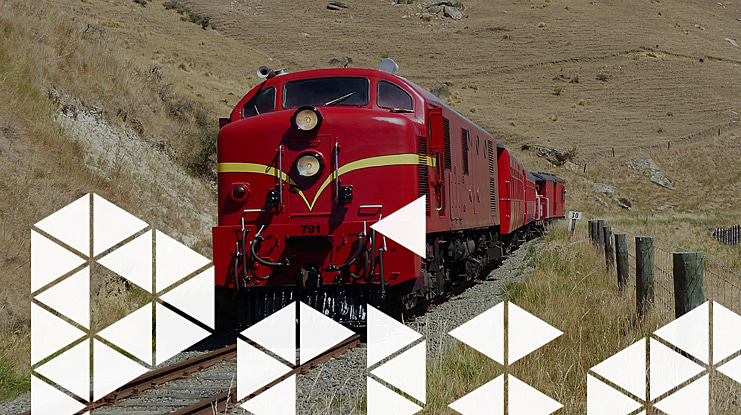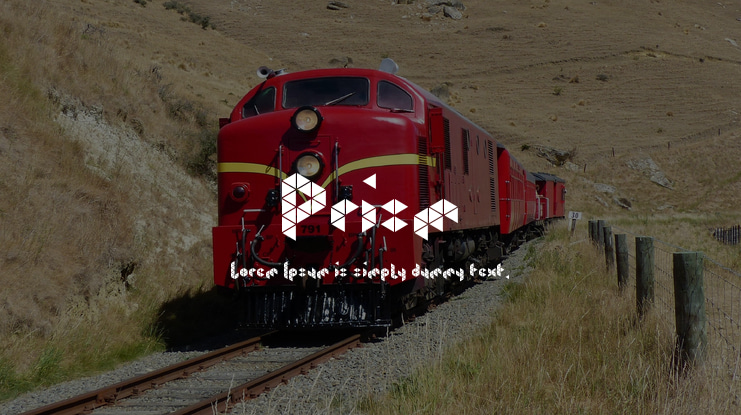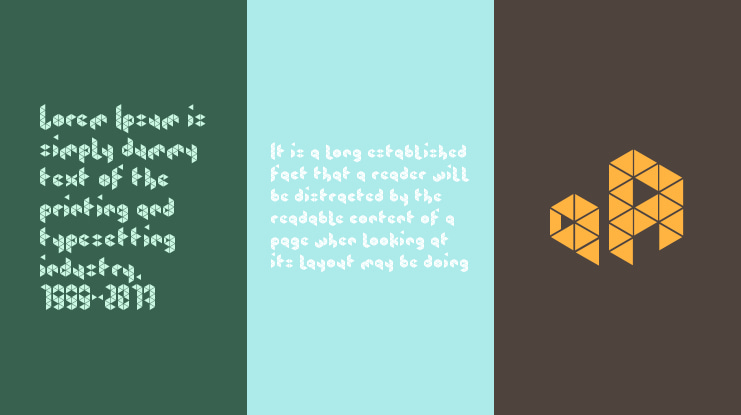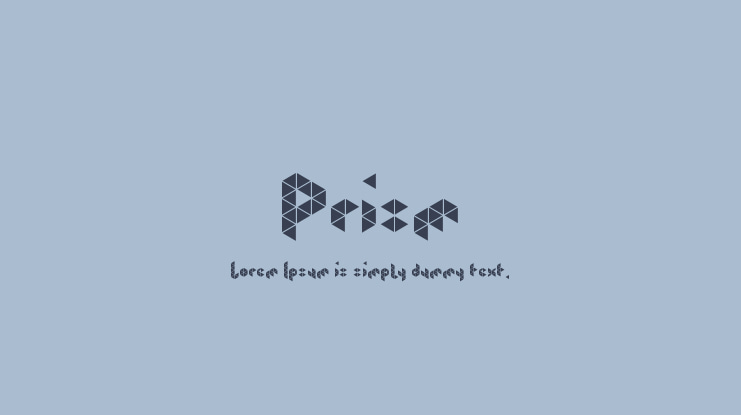
Prism Font
Tzu-yuan Yin
This is my first created alphabets font, inspired from my logo and prisms of kaleidoscope. & Thank you watching and used this!